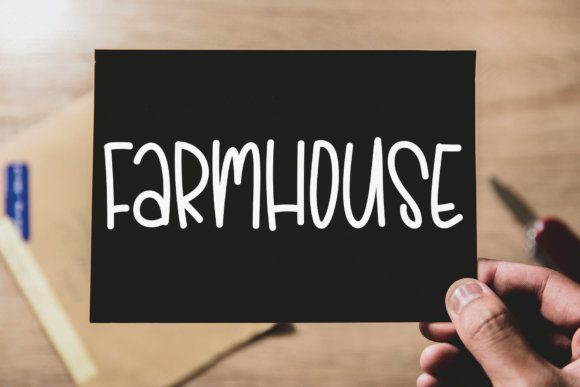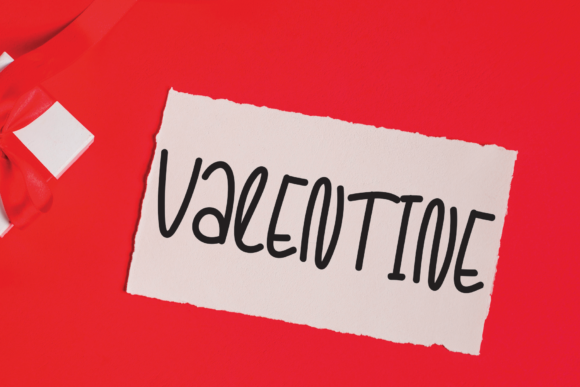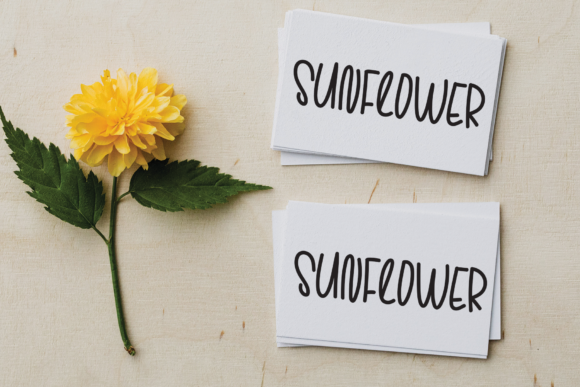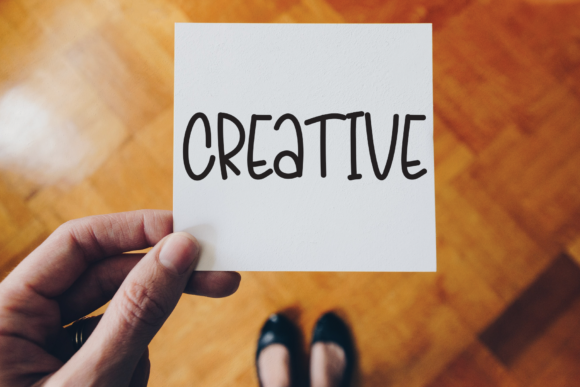
The Birth of Creativity: Introducing Birthday Font
Do you remember that moment when you first saw a handwritten note from a loved one, and it made your heart skip a beat? For many of us, handwritten notes evoke feelings of warmth and love. As designers, we strive to recreate that same magic in our work. That’s where the Birthday Font comes in – a beautiful, organic handwritten font that’s perfect for adding a personal touch to your designs.
Designed to bring a smile to your audience’s faces, Birthday Font is a versatile tool for any project that requires a touch of handwritten elegance. From wedding invitations to social media post logos, this font is sure to make your designs stand out. Its unique style and organic feel make it a valuable asset for designers looking to add a personal touch to their work.
Birthday Font Key Features
- Unique Characteristic: Includes special birthday-themed characters and glyphs, such as candles, balloons, and confetti.
- Style Options: Available in bold, italic, and regular styles, allowing for varied design expressions.
Birthday Font Review
Overall, I think the Birthday Font is a fun and playful option for adding a celebratory touch to your designs. ✨ The font’s bold and colorful design is sure to grab attention and evoke a sense of excitement and joy. The font’s versatility also makes it suitable for a wide range of projects, from social media graphics to party invitations.
One of the things that really stands out about the Birthday Font is its customizable options. ✨ The font comes with a range of different styles and colors, allowing you to easily match it to your brand’s aesthetic. Additionally, the font is highly legible, even at small font sizes, making it perfect for use in a variety of contexts.
- ⚠️ The font may not be suitable for formal or professional projects, as its playful design may come across as too casual.
- ⚠️ The font’s bold design can sometimes be overwhelming, so be sure to use it in moderation to avoid visual overload.
- ⚠️ Some users may find the font’s customization options to be a bit limited, particularly when it comes to adjusting the font’s size and spacing.
Overall, I think the Birthday Font is a great option for designers looking to add a bit of fun and whimsy to their projects. With its customizable options and versatile design, it’s sure to be a hit with clients and audiences alike.
The Birthday Font is ideal for:
- Birthday invitations and cards
- Celebratory social media posts
- Party decorations and signage
- Birthday-themed graphics and illustrations